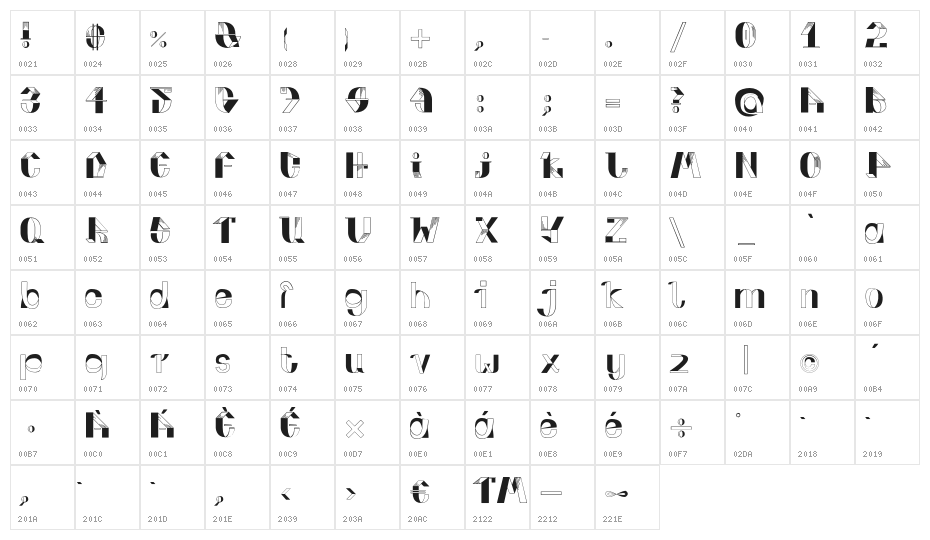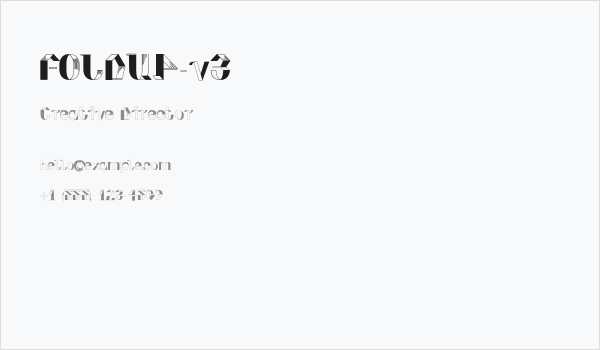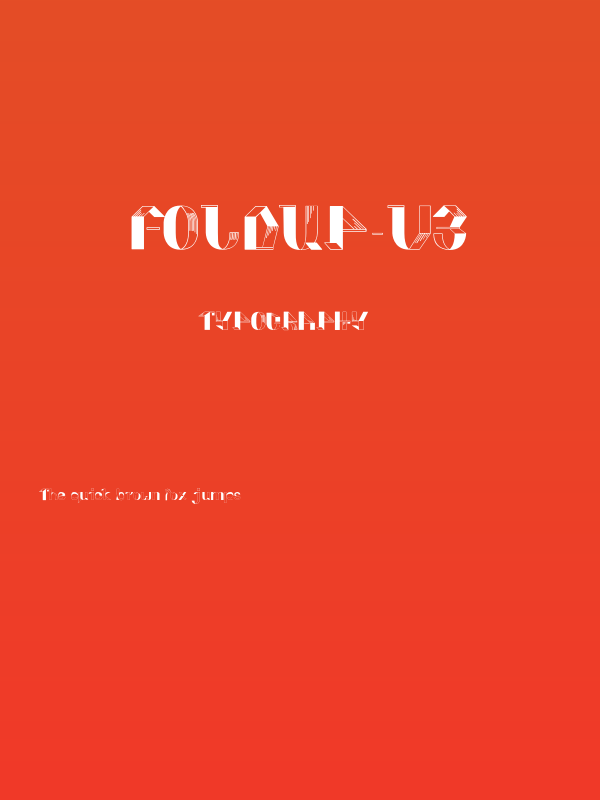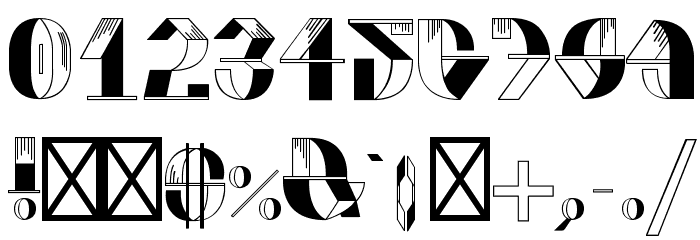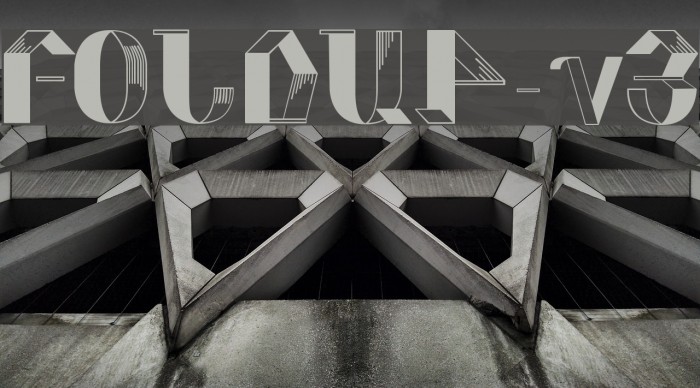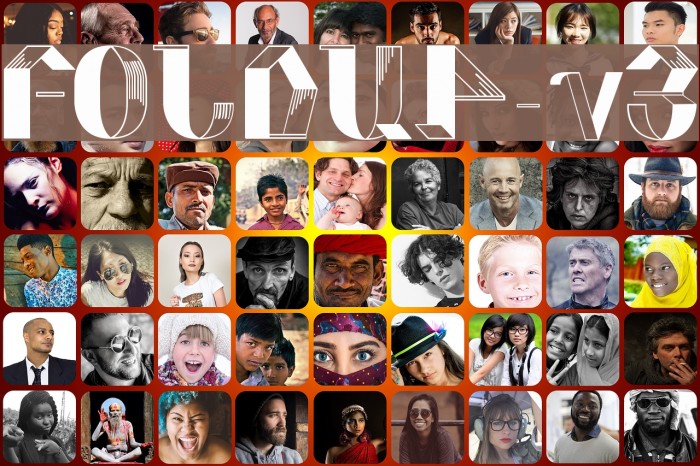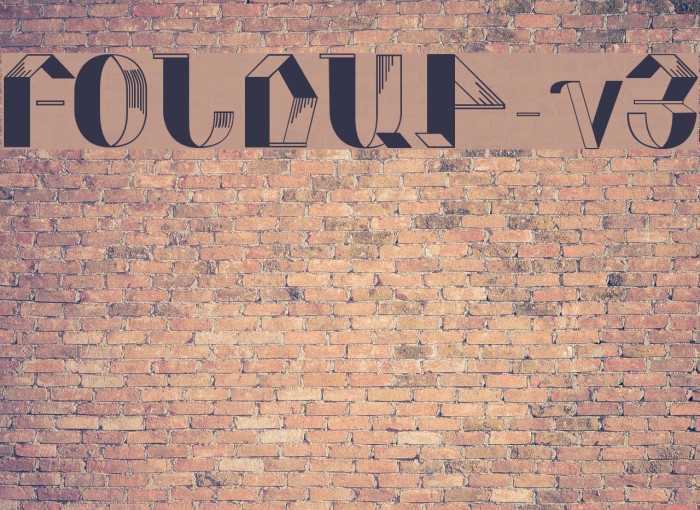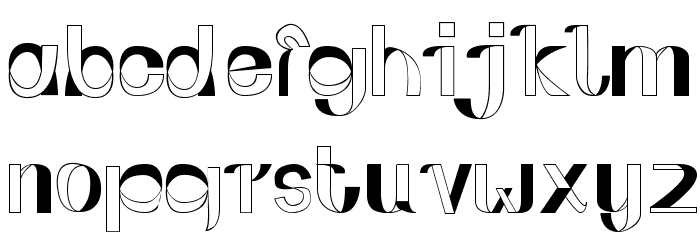
FOLDUP-v3 Font
FOLDUP-v3 Description
This font features a unique and artistic design that combines geometric shapes with a bold, modern aesthetic. Each character is crafted with a mix of solid and outlined segments, creating a dynamic interplay between positive and negative space. The uppercase letters exhibit a strong presence with angular cuts and contrasting strokes, while the lowercase letters maintain a cohesive style with slightly softer curves. Numbers and special characters follow the same design principles, ensuring a consistent look across all glyphs. The font's distinct style makes it ideal for creative projects that require a standout visual impact.